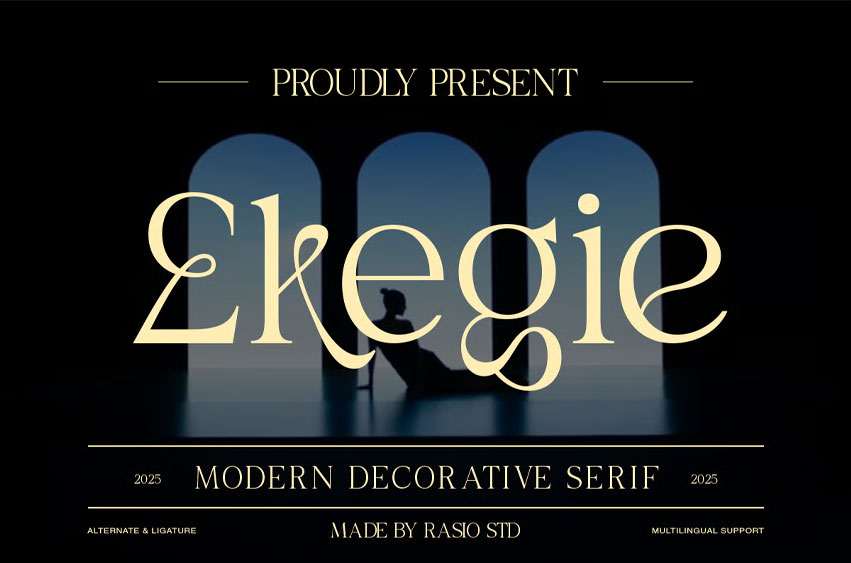
Ekegie Font is a modern decorative serif font designed with refined elegance, artistic ligatures, and unique alternate characters. Each letterform blends classical beauty with contemporary sophistication, making it an ideal choice for premium design needs. The typeface includes a complete set of uppercase and lowercase letters, punctuation, numerals, and multilingual support, offering full flexibility for global branding and creative projects.
• Ligatures & Alternate
Discover sophistication in every curve with Ekegie, a decorative serif font designed to embody elegance, style, and timeless charm.